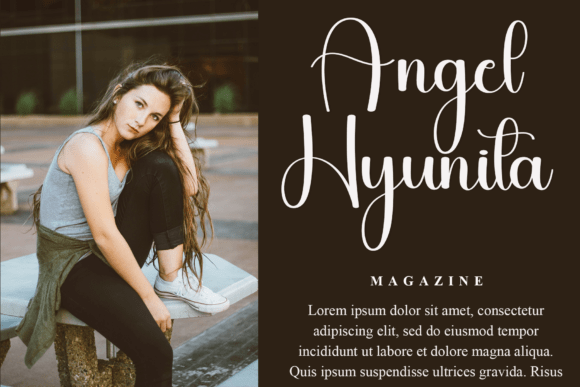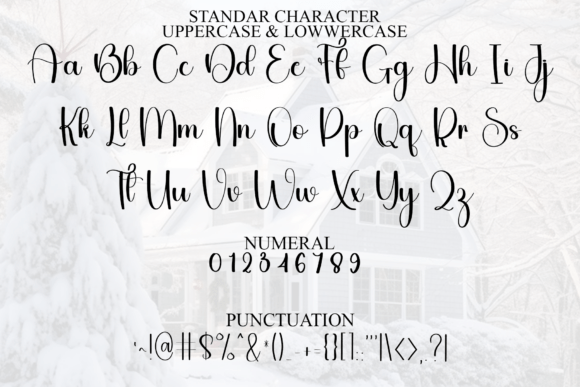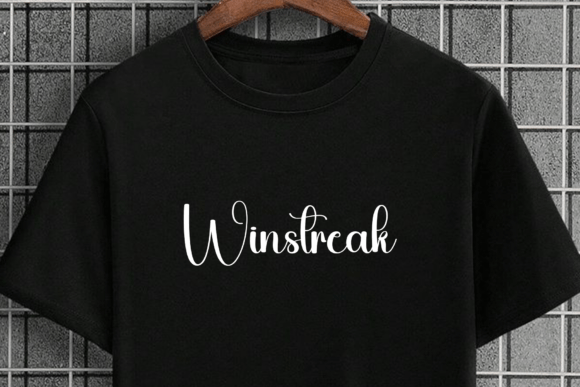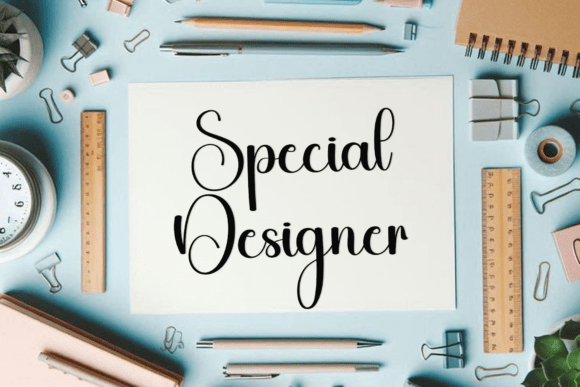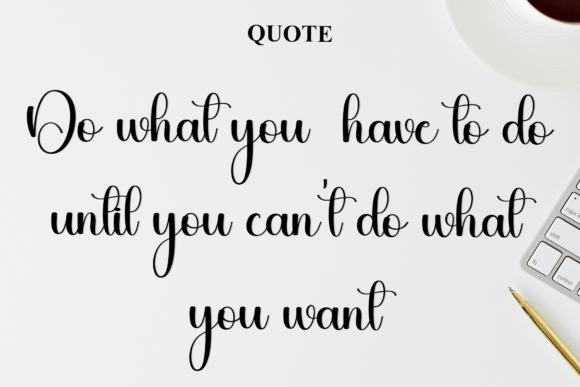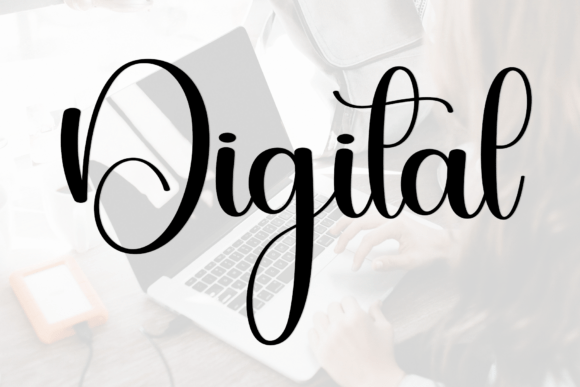
The Digital Planner Font: Elevating Your Designs with Elegance
Have you ever been in the middle of a design project, pouring your heart and soul into it, only to hit a roadblock when it comes to choosing the perfect font? I certainly have. It was during one of those moments, working on a wedding invitation design, that I stumbled upon the Digital Planner Font. Its elegant and flowing script caught my eye, and I knew I had found the one. In this article, I’ll share my experience with this beautiful font, its features, and how you can make the most of it in your designs.
A Personal Review: What I Love and What to Consider
- ✅ Elegant and sophisticated: The Digital Planner Font exudes class and refinement, making it perfect for projects that require a touch of luxury.
- ✅ Highly versatile: From wedding invitations to logos, branding, and social media graphics, this font adapts seamlessly to various design needs.
- ✅ Easy to read: Despite its elegant nature, the font remains clear and legible, even at smaller sizes.
- ✅ Unique character: The font’s modern twist on traditional calligraphy sets it apart from more generic script fonts.
A Few Quirks to Keep in Mind 🤔
- ⚠️ Limited use in body text: While beautiful, the font’s elegant nature may not be suitable for lengthy body text. Consider using it for headings or short paragraphs instead.
- ⚠️ Requires attention to spacing: To maximize the font’s impact, pay attention to letter spacing and word spacing to avoid a cluttered look.
- Experiment with the font’s OpenType features, such as stylistic alternates, to add more personality to your text.
The Story Behind the Font: Designer Inspiration
The Digital Planner Font was created with the goal of capturing the essence of traditional calligraphy in a modern digital format. Inspired by the flowing scripts of 18th-century European calligraphy, the font’s designer aimed to create a font that would bring a touch of elegance and sophistication to digital designs. Through careful attention to detail and a deep understanding of typography, the Digital Planner Font was born.
Q: What makes the Digital Planner Font unique?
A: The font’s unique blend of traditional calligraphy and modern digital design sets it apart from other script fonts.
Q: Is the Digital Planner Font suitable for body text?
A: While beautiful, the font’s elegant nature may not be suitable for lengthy body text. Consider using it for headings or short paragraphs instead.